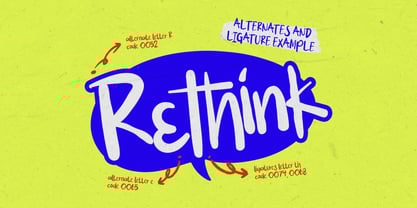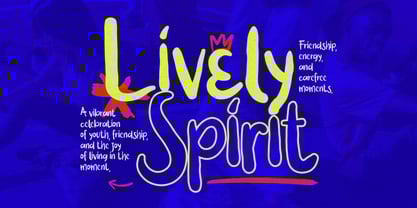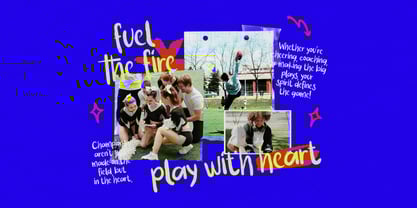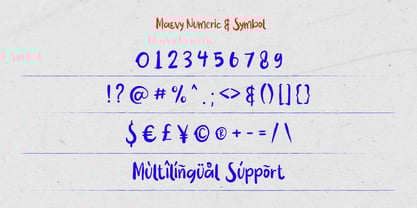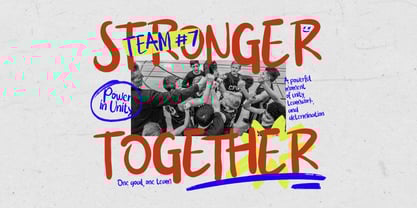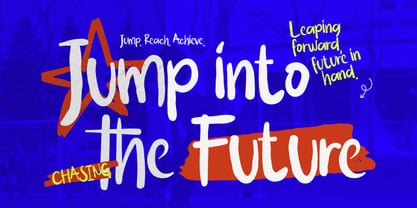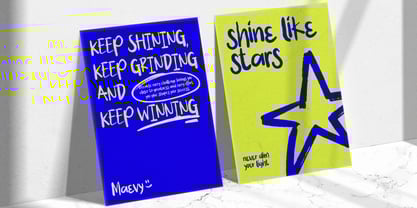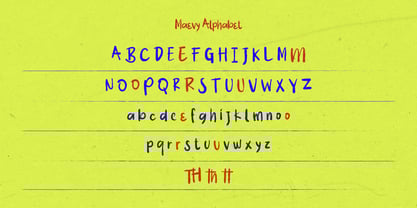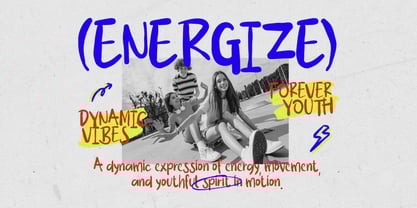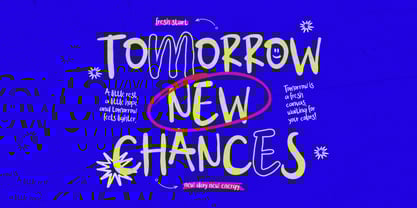
Maevy
by Inviline
The Maevy Font Family was designed by Virgiawan Listanto and published by Inviline. Maevy contains 1 styles. More about this family
Brush Handwritten Font is a stylish and versatile typeface designed to mimic the natural, fluid strokes of hand-drawn lettering. With its casual, organic appearance, it adds a personal and artistic touch to designs, making it ideal for creative projects, branding, invitations, and social media graphics. Its varied stroke widths and slightly irregular shapes give it an authentic, human feel, perfect for conveying warmth and creativity.
Designers: Virgiawan Listanto
Foundry: Inviline
Maevy